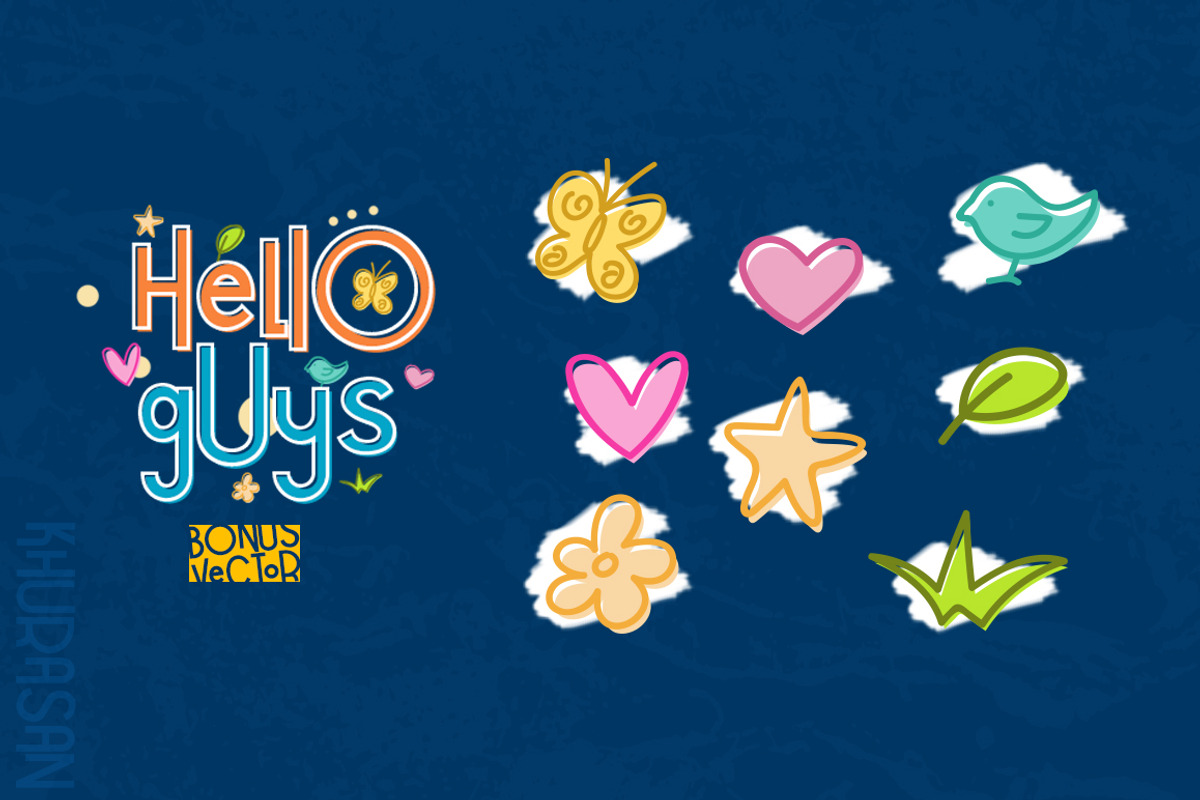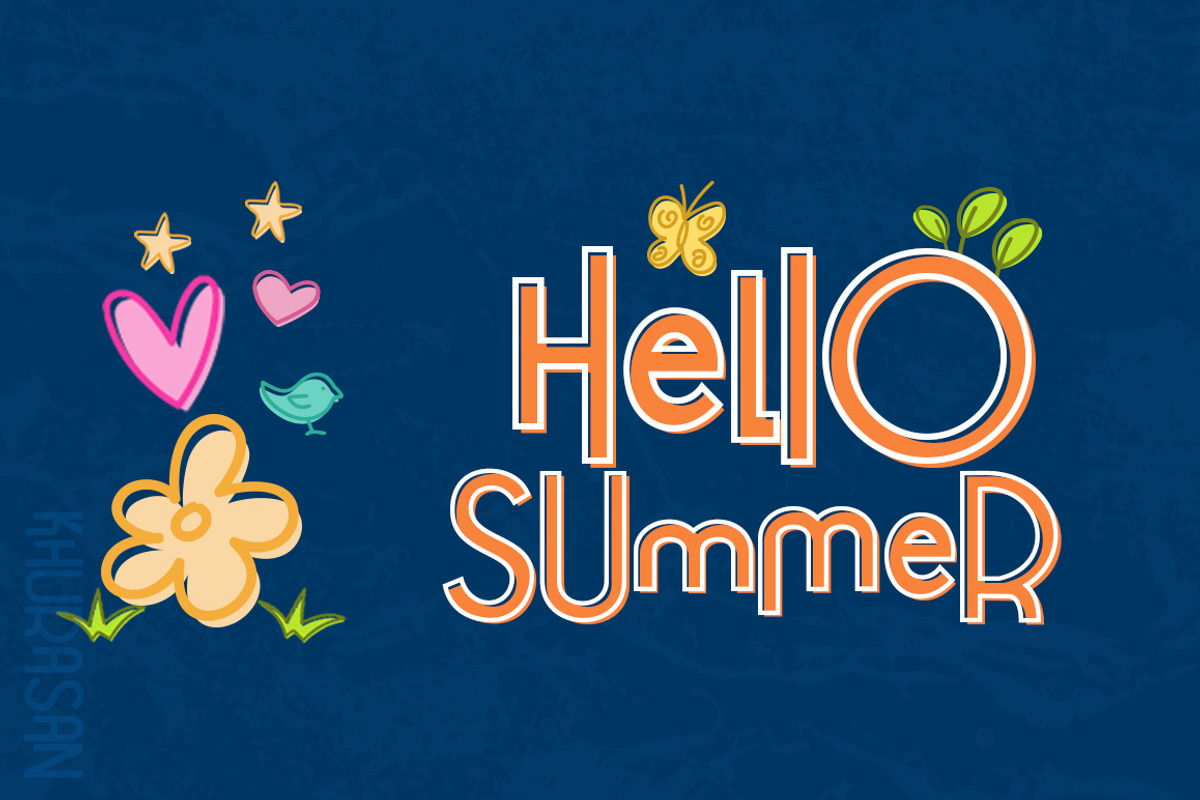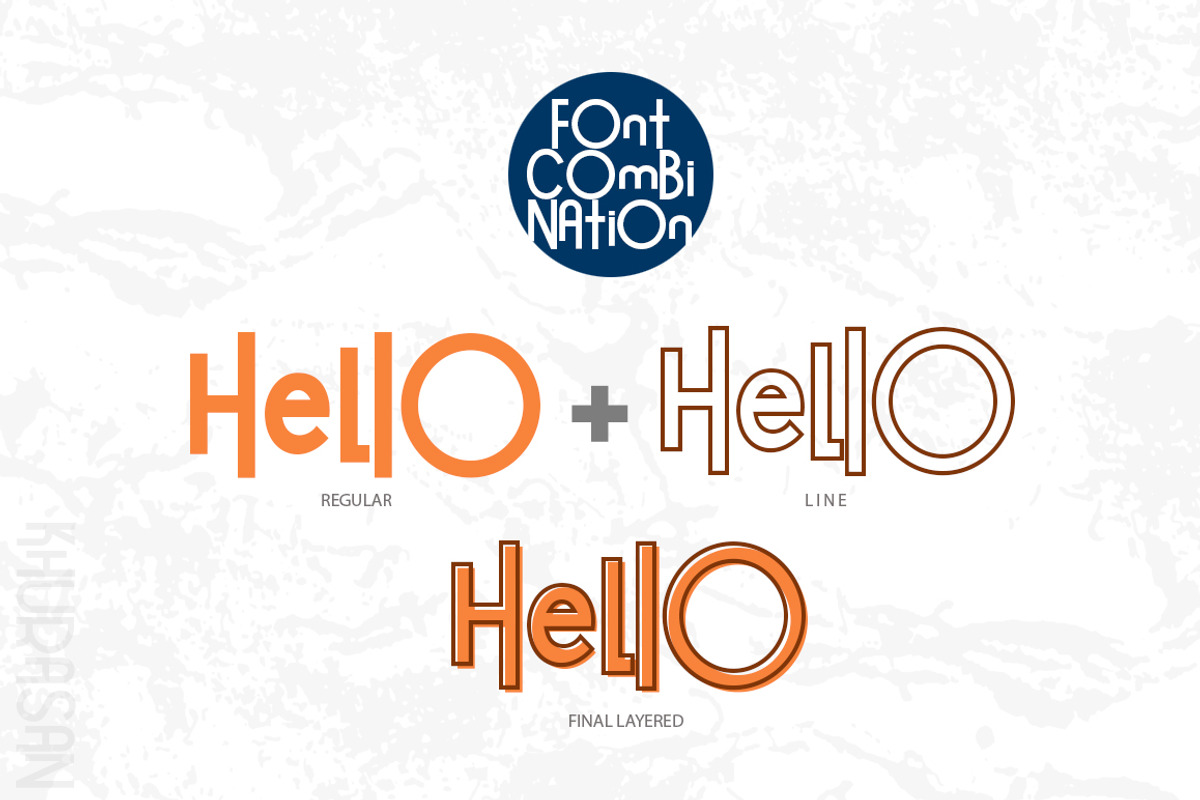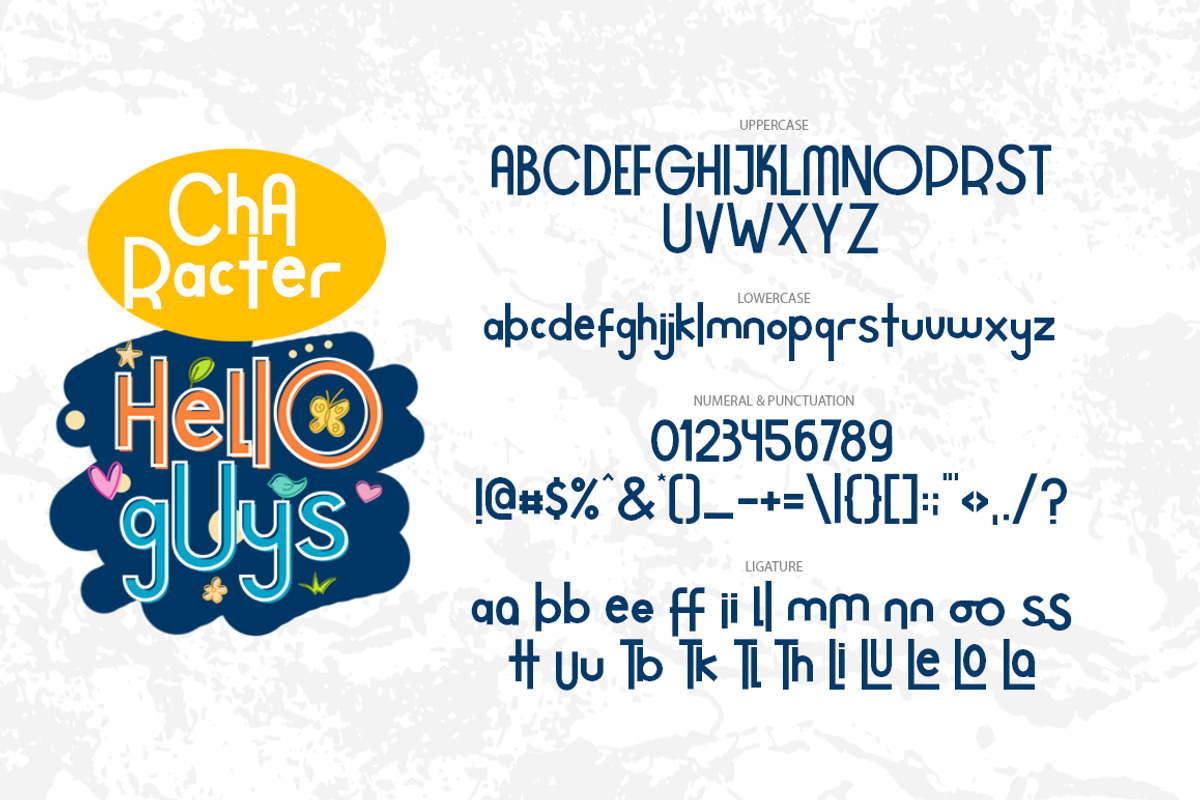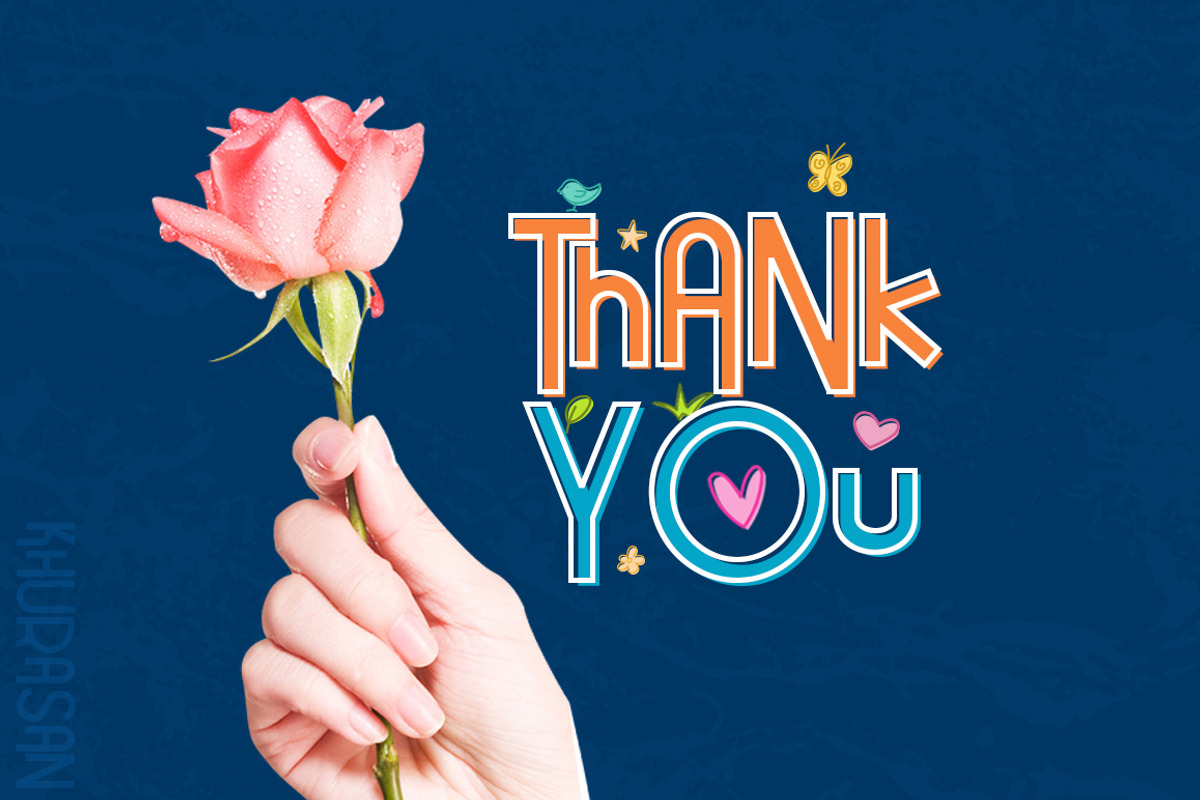
Hello Guys Layered Font
Introducing, Hello Guys font a layered typeface with cheerful theme for your fun project and awesome character with 2 different style, regular and line. Hello Guys font support multilanguage & used with layers method. Hello Guys font suitable for logo, branding, greeting card, poster and any design that you create.